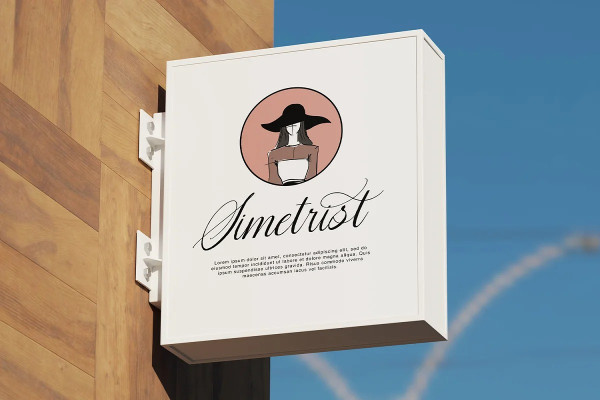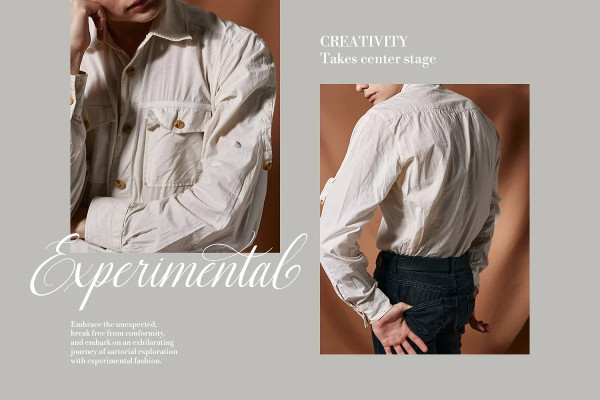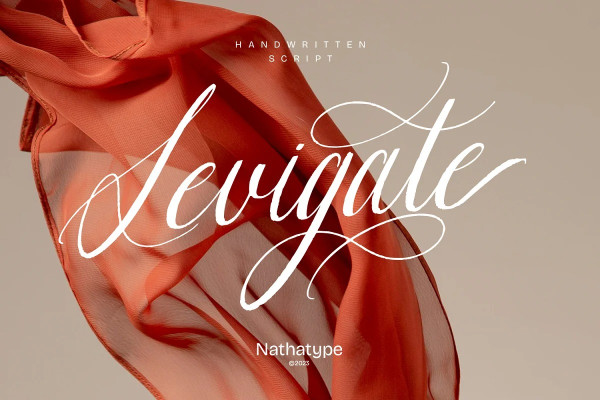
Levigate Font
Levigate Font is a graceful script font that beautifully captures the essence of cursive handwriting with a touch of sophistication. This typeface exudes an air of elegance and refinement, making it perfect for projects that require a stylish and polished look.
Each letter in this font is meticulously crafted with high contrast, adding a dynamic and eye-catching quality to the font. The combination of thick and thin strokes creates a sense of fluidity and movement, adding a sense of energy and vibrancy to your typography.
The swinging endings in some letters of Levigate Font bring a touch of whimsy and personality to the font. These charming details add a flourish of creativity and uniqueness, making the script come to life with a sense of playfulness. For the best legibility you can use this font in the bigger text sizes. Enjoy the available features here.